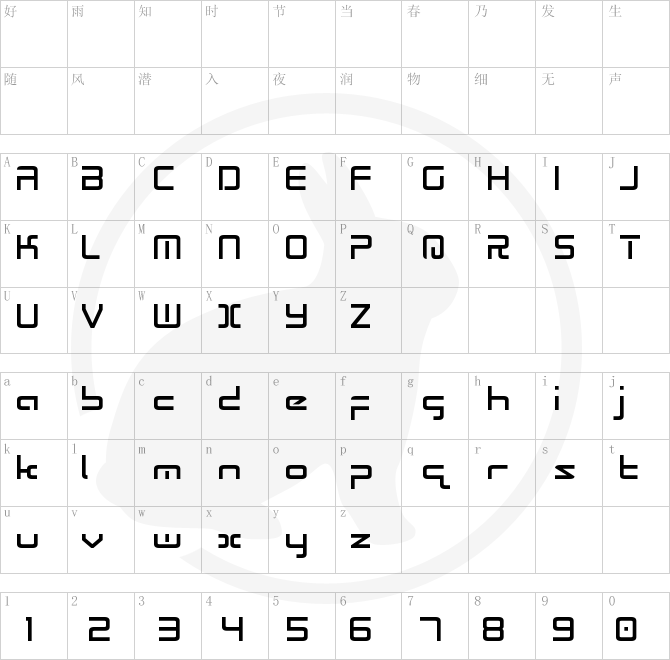
- Font Name:Radio Space
Radio-Space-copy-1-.ttf is a very beautiful artistic font, Radio-Space-copy-1-.ttf is widely used in the design and printing of various books and pictures,Radio-Space-copy-1-.ttf has a strong visual impact,Radio-Space-copy-1-.ttf is a commonly used font in newspapers, magazines and books, and is used in posters, e-commerce Poster design, store design, logo design, font design and other fields.Radio-Space-copy-1-.